Bebas Neue is a popular all caps font released in 2010. It features nice bold letters which work great for headlines that need to stick out.
Originally Bebas Neue was only all caps. Later, the designer released a pro version that features different weights and even lower case letters.
The pro version is obviously a paid version of the font. However, Google Fonts does give us a good alternative that will work for any designer on a budget.
Is Bebas Neue a Google Font?
Bebas Neue, the original, is a free to use font on Google Font. This is the all caps version. However, if you want to pro version, which features different weights and lower case letters, then you will have to pay.
So technically Bebas Neue is a free font, but it is limited.
What Google Font is Similar to Bebas Neue?
The best alternative for Bebas Neue is Oswald.
Oswald features many of the same features and characteristics as Bebas Neue.
The most notable is how blocky the font feels.
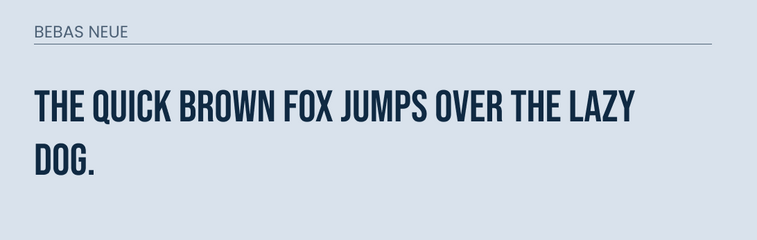
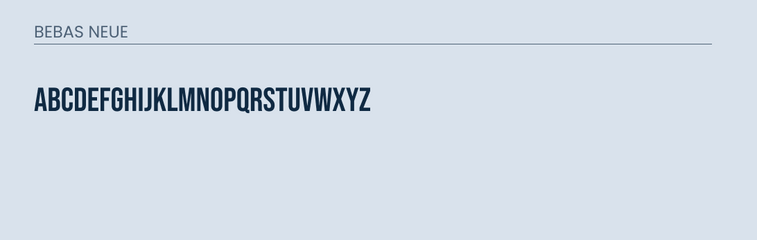
Both are thick fonts with sharp corners.
The main difference is that oswald comes with different weights and lower case letters out of the box. This is what makes it such a great alternative to Bebas Neue pro.